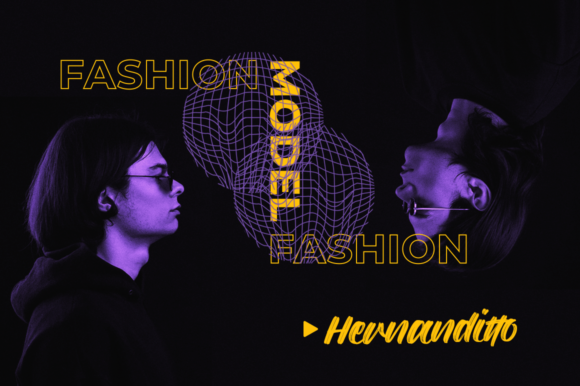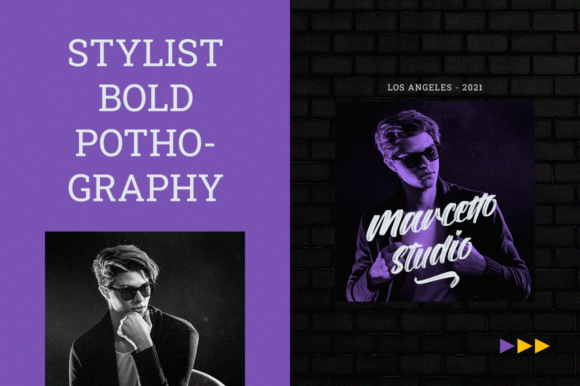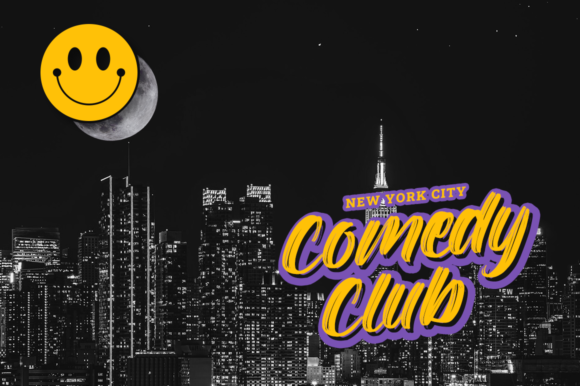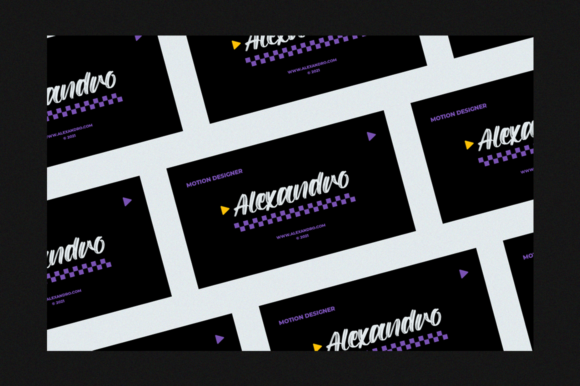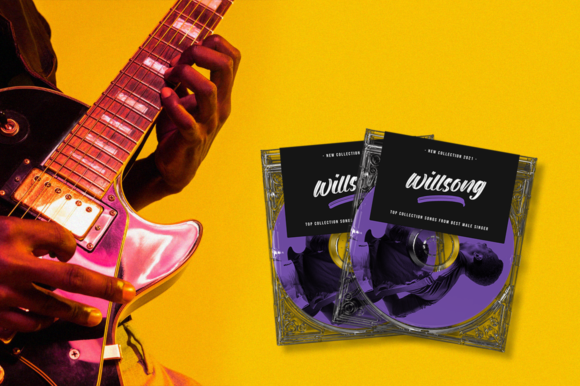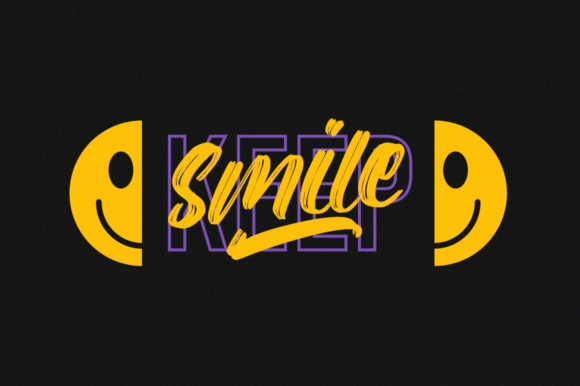
Introduction to Shuttles Font
Have you ever been working on a creative project, and you’re struggling to find the perfect font to bring your idea to life? You’ve spent hours browsing through design resources, but nothing seems to capture the essence of your vision. That’s where the Shuttles Font comes in – a game-changing, high-quality font that’s sure to elevate your design to the next level.
With its cool, bold, and brushed display style, the Shuttles Font is an incredibly versatile design asset that can add a touch of sophistication to any creative project. Whether you’re working on a graphic design, a logo, or even a social media post, this font is sure to make a statement. Plus, with its transparent background, you can easily layer it over any image or design element to create a seamless look.
Key Features of Shuttles Font
- Unique characteristics include a modern and sleek aesthetic, making it perfect for minimalist designs
Honest Review: Shuttles Font
I recently had the chance to work with the Shuttles Font, and I must say it’s been a pleasant experience. As a designer, I’m always on the lookout for high-quality design resources that can help elevate my creative project.
One of the standout features of the Shuttles Font is its transparent background, which makes it incredibly versatile and easy to use. This has been a game-changer for me, as it allows me to seamlessly integrate the font into my designs without worrying about distracting backgrounds.
Here are some of the things that work well with the Shuttles Font: ✨
- High-quality design with crisp lines and clean typography
- Extremely versatile, suitable for a wide range of creative projects
- Easy to use and customize
However, I did encounter a few limitations while using the Shuttles Font: ⚠️
- Some users may find the font a bit too minimalist, which may not be suitable for all design styles
- The font family is relatively small, which may limit its use in certain situations
Overall, I’m quite impressed with the Shuttles Font. Its high-quality design and transparent background make it a valuable addition to any designer’s toolkit. And the best part? It’s available for free download, making it a fantastic resource for designers on a budget. I’d definitely recommend giving it a try for your next creative project.
Shuttles Font is a versatile font that can be used in a variety of creative projects, including logos, business cards, brochures, and social media graphics. It’s also a great choice for designing presentations, reports, and documents.
To get the most out of Shuttles Font, be sure to experiment with different font sizes, colors, and styles. You can also combine the font with other design elements, such as images and graphics, to create a unique and eye-catching design.